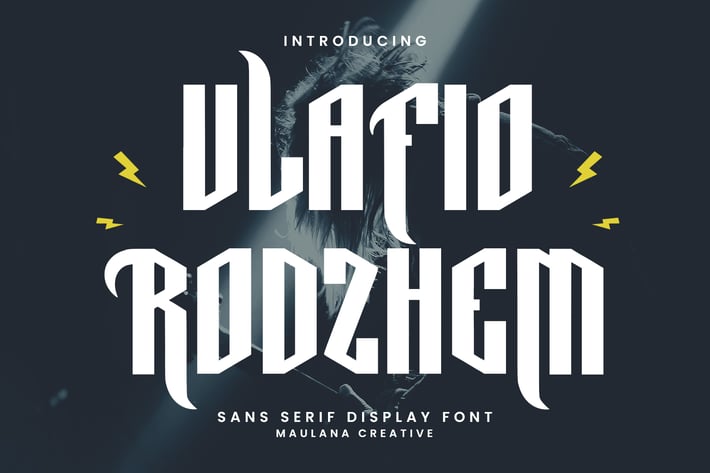
Vlafio Rodzhem Music Display Font Decorative
Vlafio Rodzhem sans music display font decorative, bold stroke, fun character with a bit of ligatures. To give you an extra creative work. Vlafio Rodzhem sans music display font decorative support multilingual more than 100+ language. This font is good for logo design, Social media, Movie Titles, Books Titles, a short text even a long text letter and good for your secondary text font with script or serif. Make a stunning work with Vlafio Rodzhem sans music display font decorative.